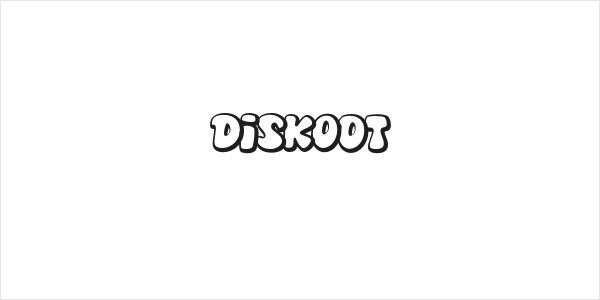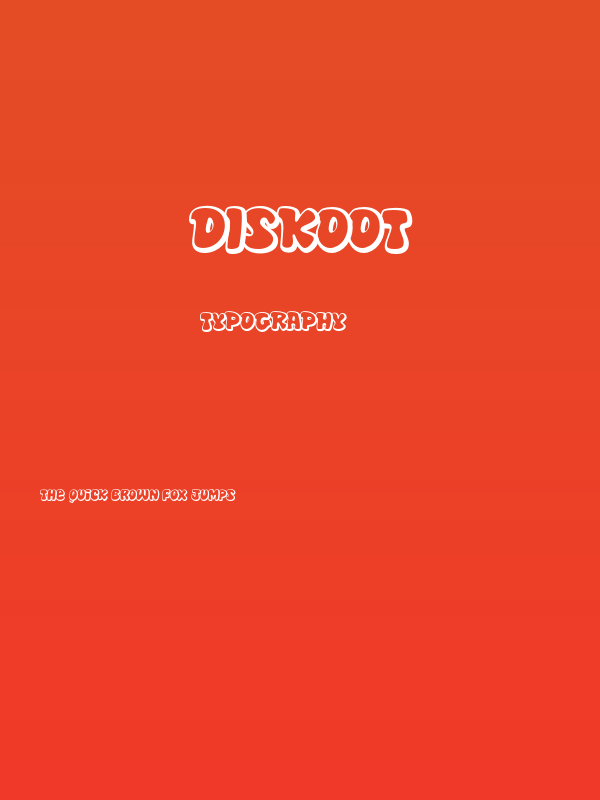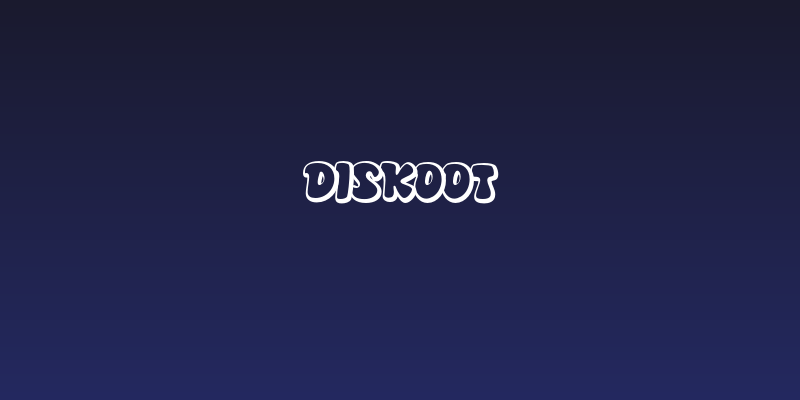
DiskoOT Font
DiskoOT Description
This playful and bold font features a bubbly, cartoonish style with thick, rounded edges and a strong outline that gives each character a three-dimensional appearance. The letters are uniformly bold, with a consistent stroke width that adds to the font's cohesive look. The characters are slightly condensed, enhancing the playful and energetic feel. The font includes both uppercase and lowercase letters, numbers, and a variety of special characters, making it versatile for different design needs. Its unique style is reminiscent of retro comic book lettering, adding a sense of fun and nostalgia.
| Overall Style | Playful, Retro, Cartoonish |
| Proposed Projects | Ideal for children's books, comic strips, playful branding, party invitations, and any project requiring a fun, energetic typeface. |